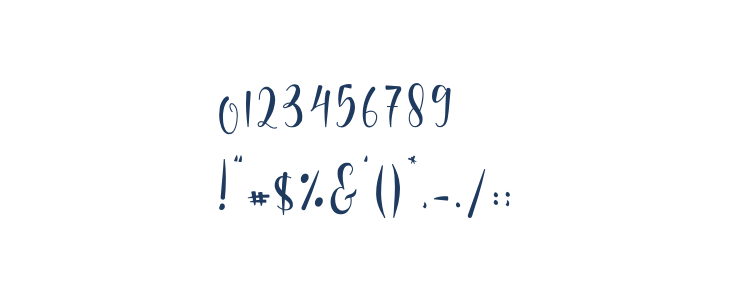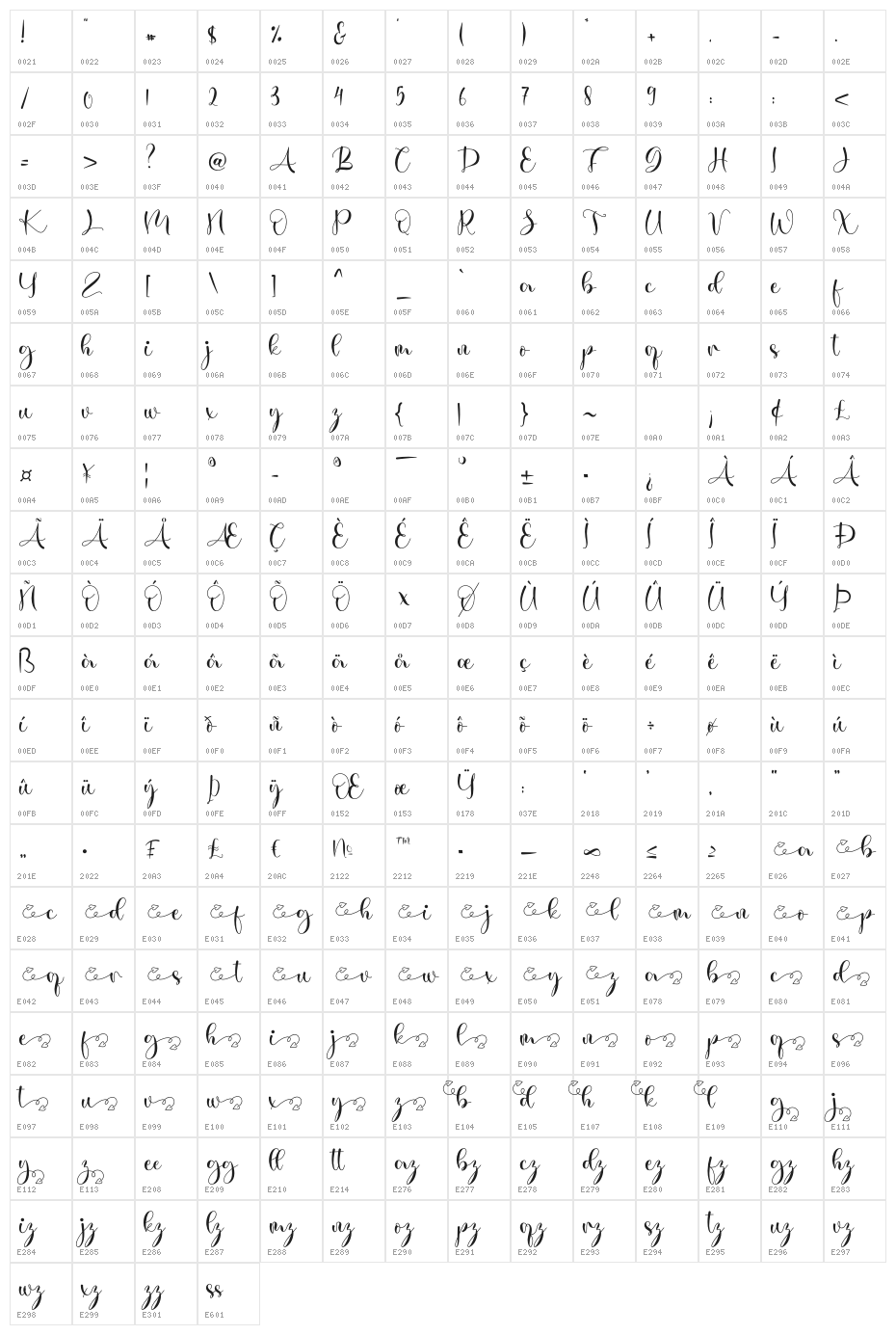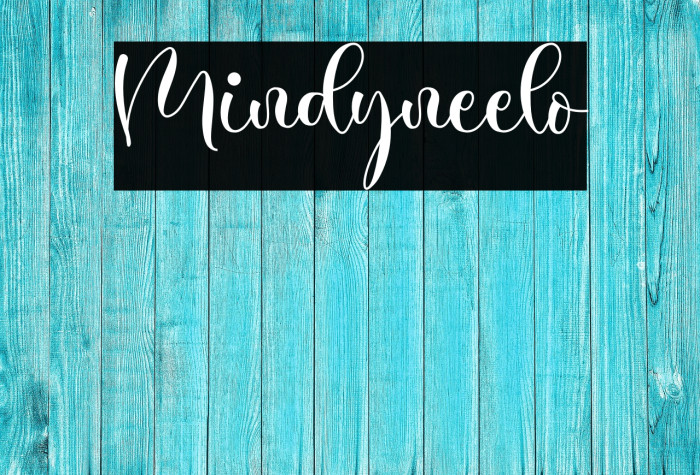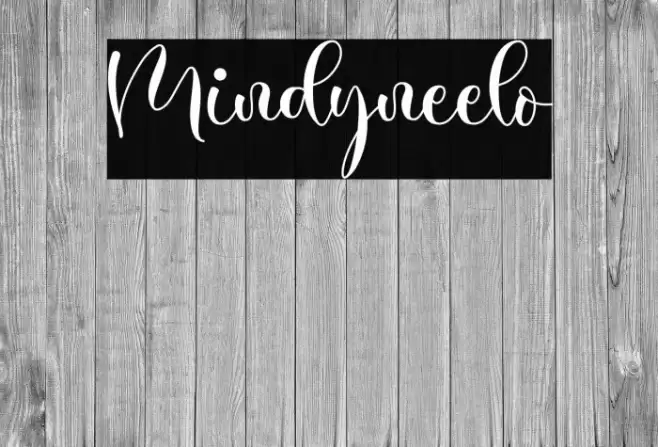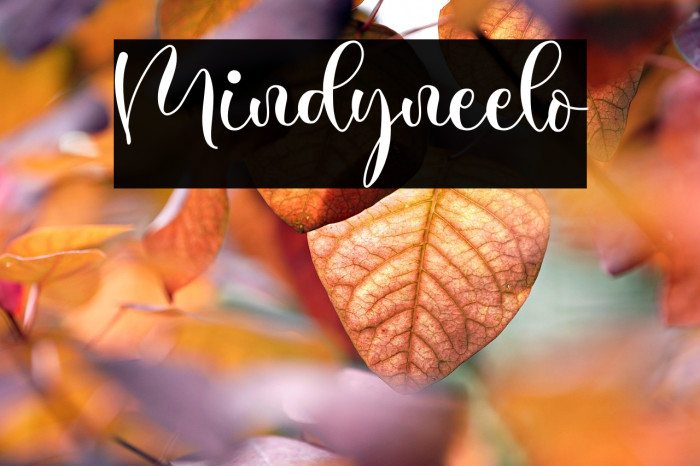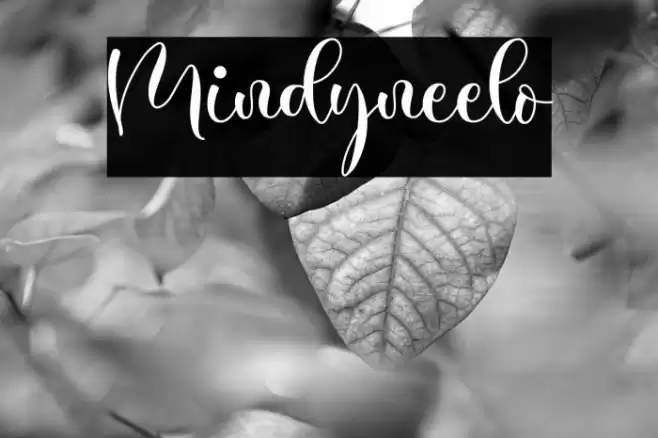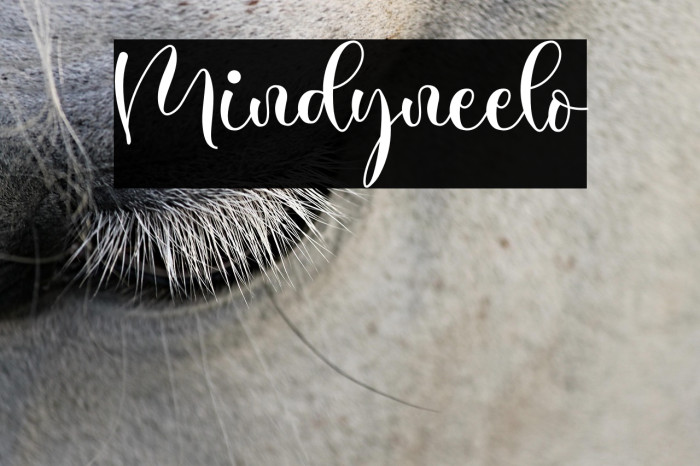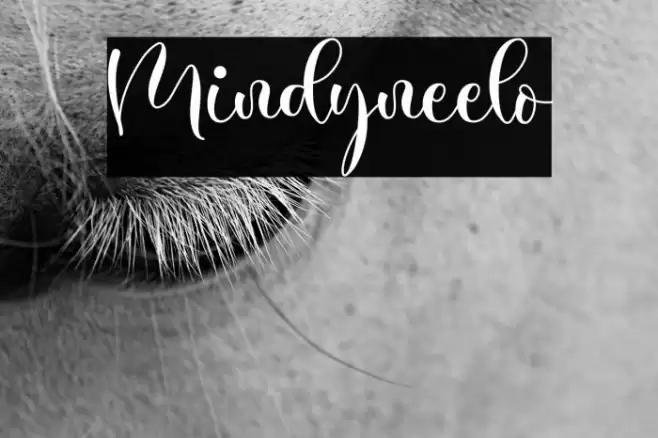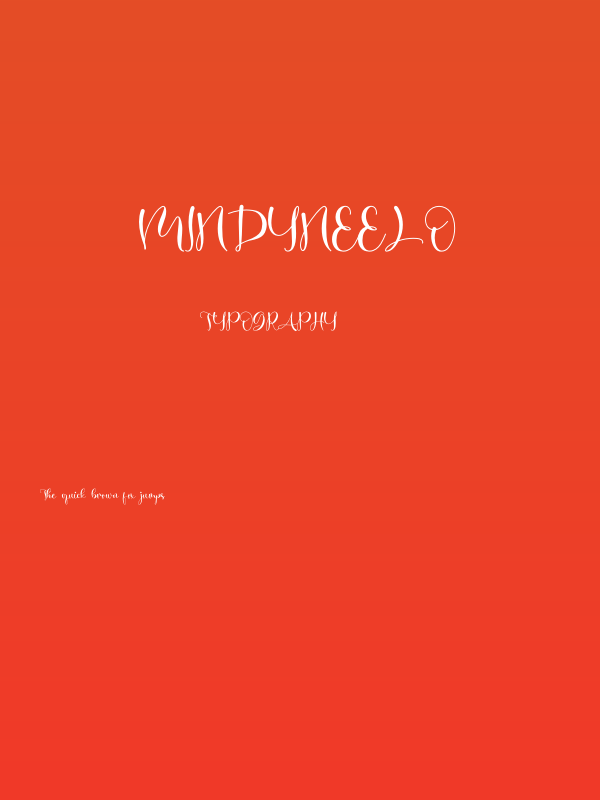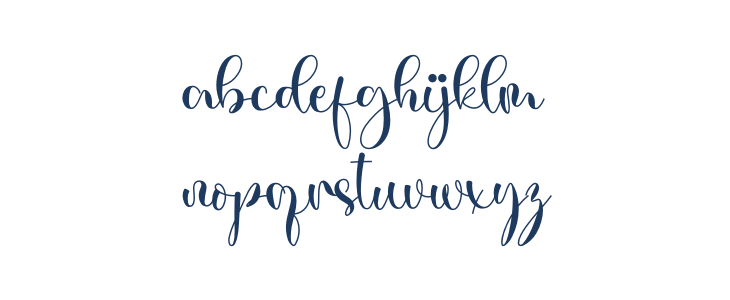
Mindyneelo Font
Mindyneelo Description
This font features an elegant and flowing script style, characterized by its smooth, cursive strokes and artistic flair. The uppercase letters are distinctively tall and slender, with graceful loops and swashes that add a touch of sophistication. The lowercase letters maintain a consistent flow, with some characters featuring unique flourishes that enhance the overall aesthetic. Numbers and special characters are designed to complement the script style, maintaining readability while adding a decorative touch. This font exudes a sense of elegance and creativity, making it suitable for a variety of artistic and formal applications.
| Overall Style | Elegant, Artistic |
| Use Case | Headlines, Invitations, Logos |